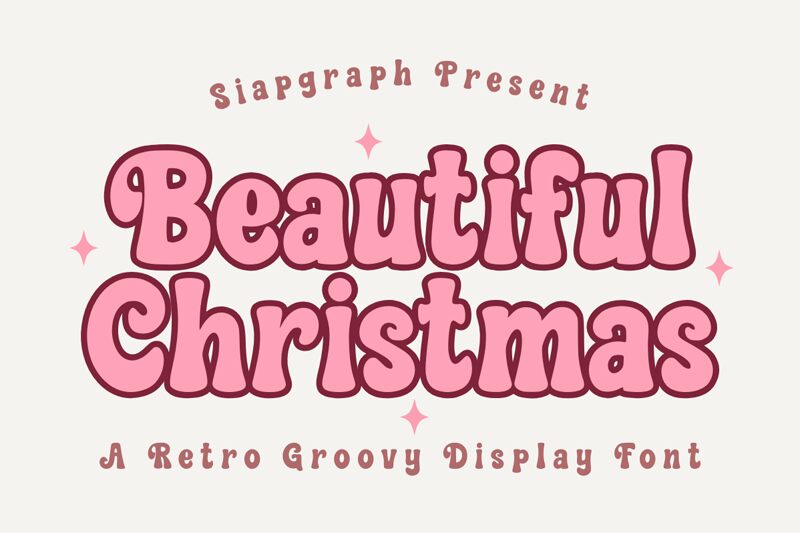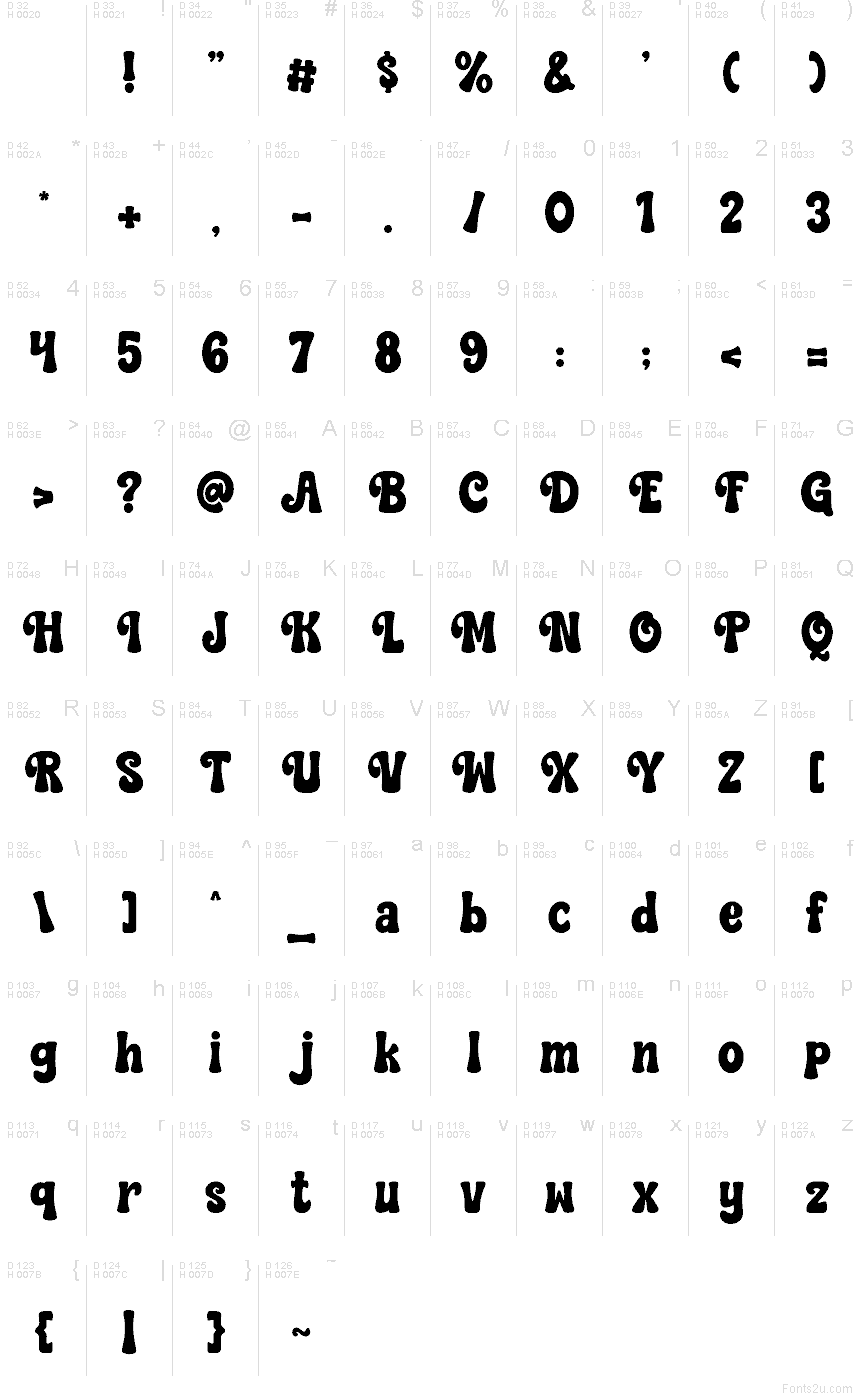
Beautiful Christmas Regular
Beautiful Christmas by SiapGraph is a free groovy display font shaped around big, rounded forms and deep inward curves that make the lettering feel soft and cushioned rather than sharp. Its rhythm comes from those swollen silhouettes and pinched joins, giving the design a rolling, poster-like bounce across the line.
That kind of broad, friendly mass makes sense on holiday market signs, gift tags, party invitations, bakery packaging, and social media headers where short words need a warm graphic presence. It also lends itself to playful logo concepts and seasonal product labels, especially when you want a retro note without switching to a novelty script.